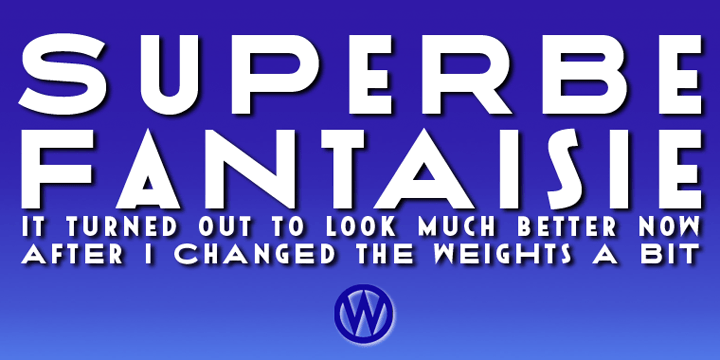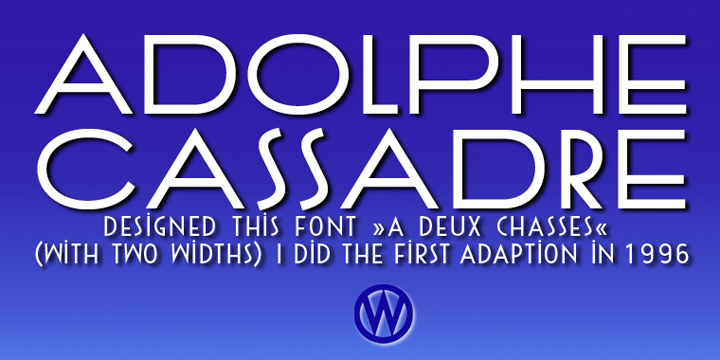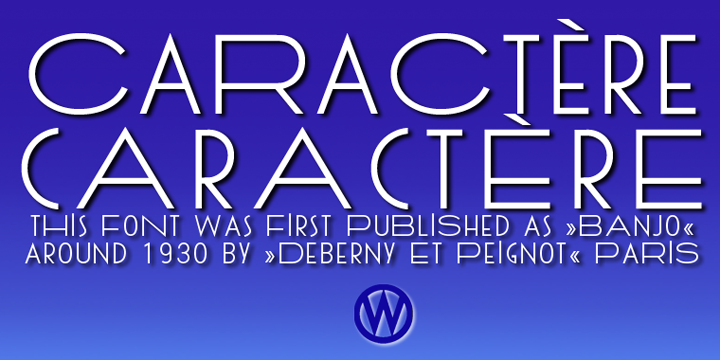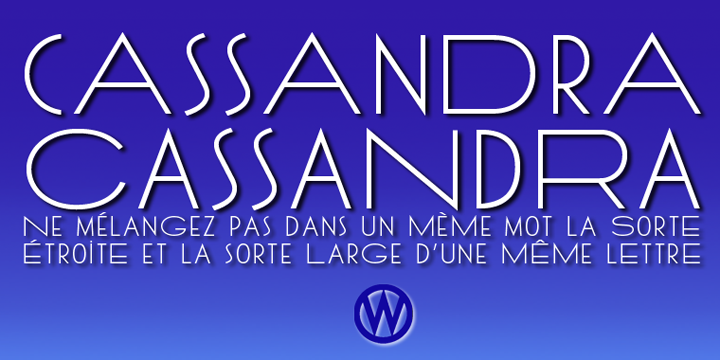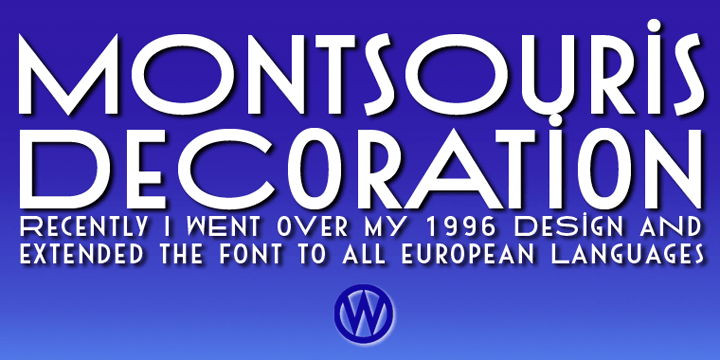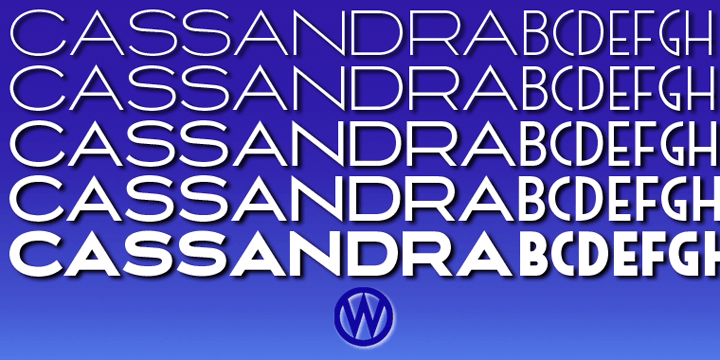
Cassandra Plus is a display sans and art deco font family. This typeface has five styles and was published by Wiescher-Design.
»Cassandra Plus« is my revised version of »Cassandra«, it can now be used all over Europe except Greece and Russia. I changed the weights a bit to make them more distinct. The Font has two widths of letters, wide Capitals on the (shift) uppercase-keys and narrow ones on the (no shift) lowercase-keys. You can match them as you like, but you should avoid having the same letter in one word in two different widths. But if yoyu are really daring you can use one narrow S and a wide one, it might still look good. It will almost always look good! Cassandra is my “bow” to Adolphe Mouron Cassandre. Yours sincerely mixing things up for you again Gert Wiescher